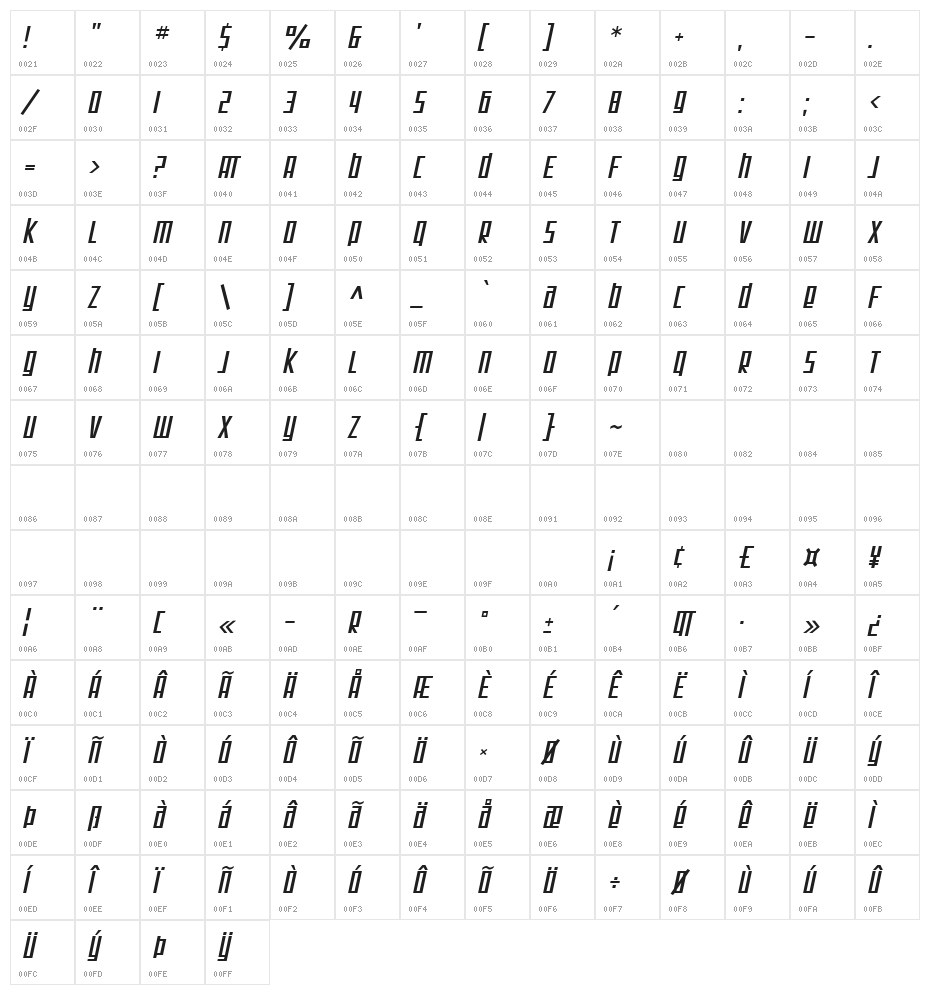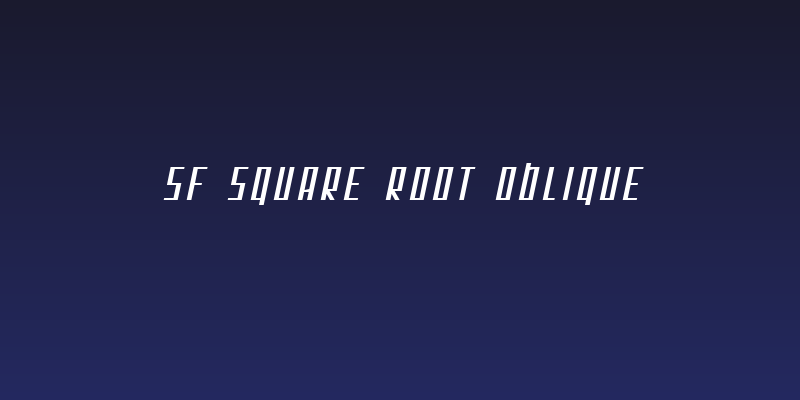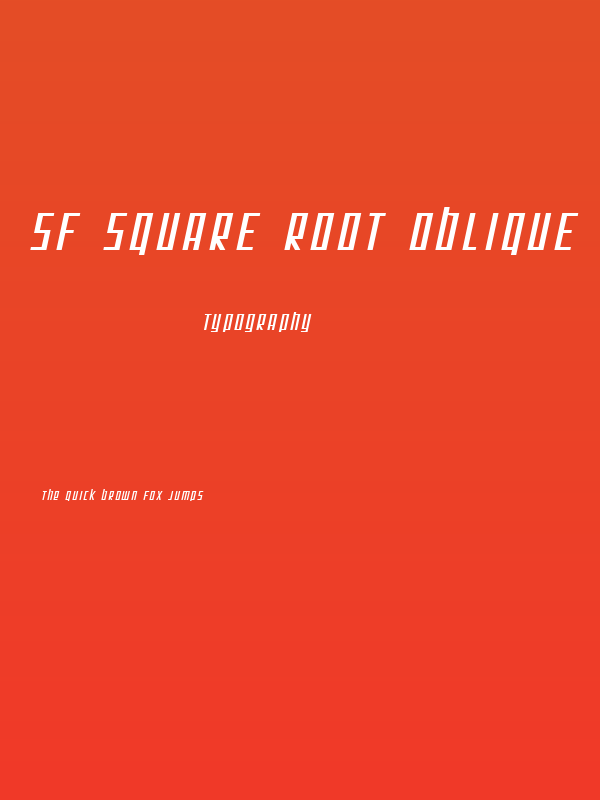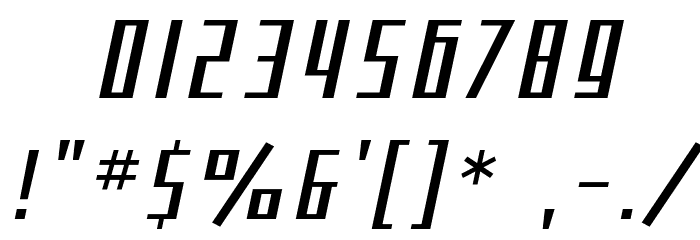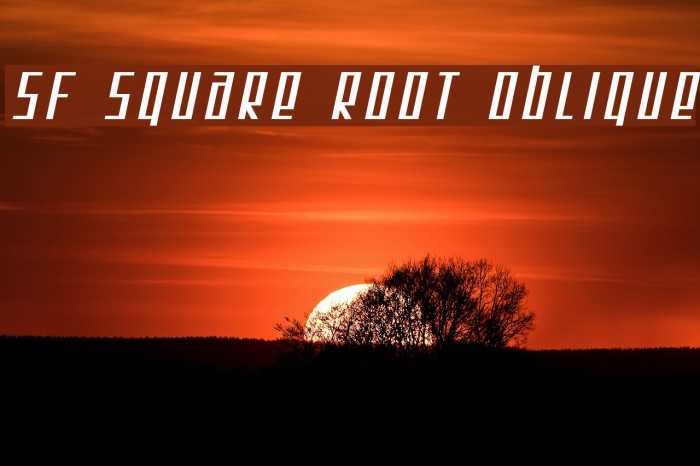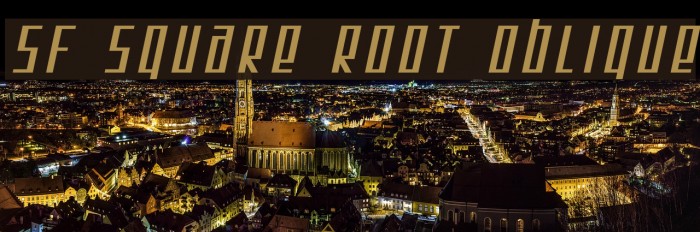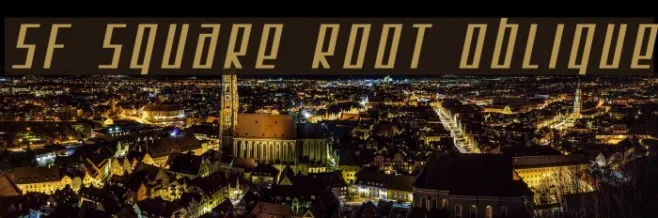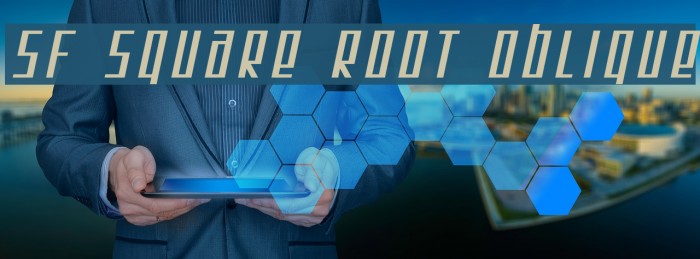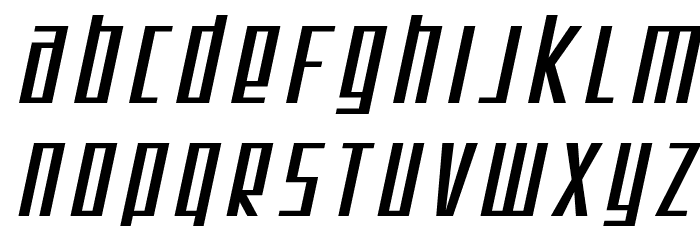
SF Square Root Oblique Font
SF Square Root Oblique Description
This font features a distinct oblique style with a modern, geometric appearance. The characters are sharply angled, giving a sense of motion and speed. The uppercase and lowercase letters maintain a consistent slant, enhancing the dynamic feel. The numerals and special characters follow the same angular design, ensuring uniformity across all glyphs. The strokes are consistent in width, providing a clean and streamlined look. This font's unique style makes it stand out, ideal for projects that require a futuristic or tech-oriented aesthetic.
| Proposed Projects | Ideal for tech branding, futuristic designs, sports logos, and dynamic headlines. |